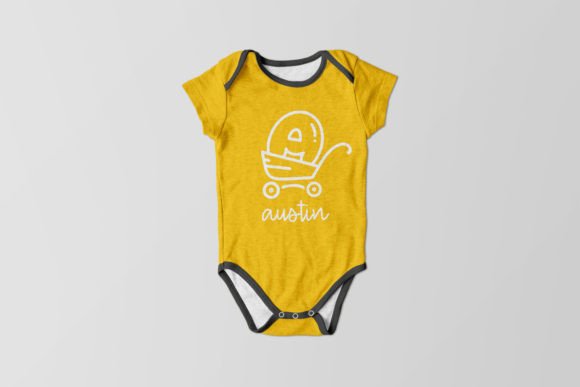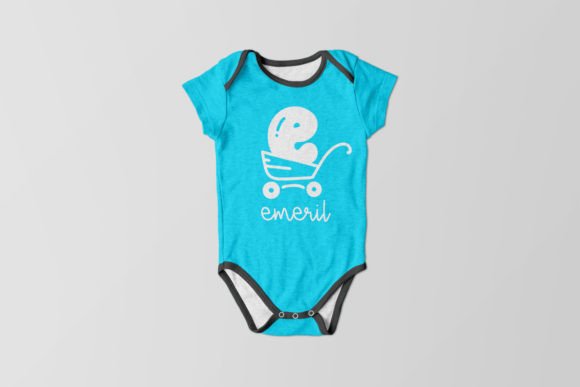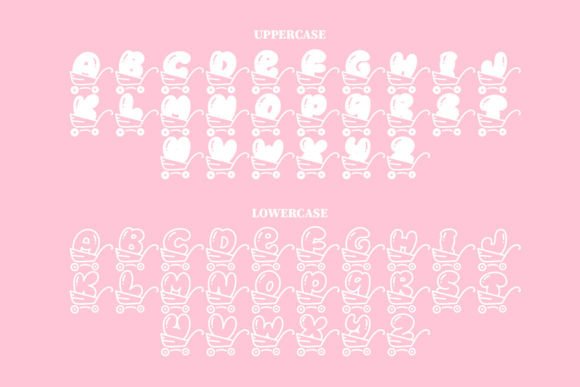
Babybox Monogram Font: The Perfect Addition to Your Craft Projects
Are you a designer or crafter looking for a unique and adorable font to add a personal touch to your baby-related projects? Look no further than the Babybox Monogram Font! This charming font is specifically designed to create a cute monogram on a baby box, but its uses don’t stop there. In this article, we’ll explore the versatility of the Babybox Monogram Font and how it can elevate your t-shirt designs, titles, mugs, tote bag designs, cards, banners, social media, and other craft projects.
What is Babybox Monogram Font?
Babybox Monogram Font is a carefully crafted font that features a sweet and playful monogram design. Its unique and intricate details make it perfect for creating eye-catching and personalized designs for baby-related products. The font is highly versatile and can be used for a wide range of applications, from digital designs to print materials.
Uses of Babybox Monogram Font
The Babybox Monogram Font is incredibly versatile and can be used for various craft projects, including:
• T-shirt designs: Create adorable onesies and t-shirts for baby showers, birthdays, or everyday wear.
• Titles and headings: Use the font to create eye-catching titles and headings for baby-themed blogs, websites, or social media posts.
• Mugs and water bottles: Add a personal touch to baby-themed mugs and water bottles with a customized monogram.
• Tote bag designs: Create cute and functional tote bags for mom-to-be or baby-related events.
• Cards and invitations: Design beautiful and personalized cards and invitations for baby showers, birthdays, or other special occasions.
• Banners and signs: Use the font to create adorable banners and signs for baby-themed parties or events.
• Social media graphics: Create engaging and shareable social media graphics for baby-related businesses or personal accounts.
Why Choose Babybox Monogram Font?
So, why choose the Babybox Monogram Font for your craft projects? Here are just a few reasons:
• Unique and adorable design: The font features a one-of-a-kind design that’s sure to capture the hearts of anyone who sees it.
• Highly versatile: The font can be used for a wide range of applications, from digital designs to print materials.
• Perfect for baby-themed projects: The font is specifically designed for baby-themed projects, making it a great choice for designers and crafters who specialize in this niche.
Tips for Using Babybox Monogram Font
Here are a few tips for using the Babybox Monogram Font in your craft projects:
• Experiment with different colors: Try pairing the font with different colors to create unique and eye-catching designs.
• Play with font sizes: Experiment with different font sizes to create visual interest and hierarchy in your designs.
• Combine with other fonts: Try pairing the Babybox Monogram Font with other fonts to create a unique and personalized look.
In conclusion, the Babybox Monogram Font is a versatile and adorable font that’s perfect for designers and crafters who specialize in baby-themed projects. With its unique and intricate design, this font is sure to capture the hearts of anyone who sees it. Whether you’re creating t-shirt designs, titles, mugs, tote bag designs, cards, banners, social media graphics, or other craft projects, the Babybox Monogram Font is a great choice. So why wait? Download the Babybox Monogram Font today and start creating adorable and personalized designs for your next project!